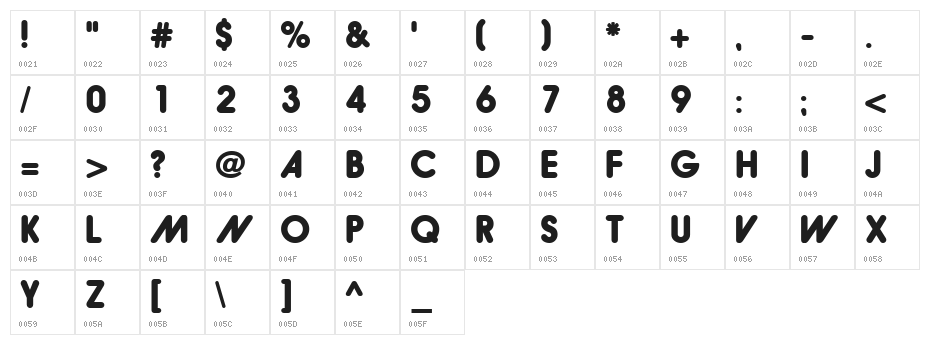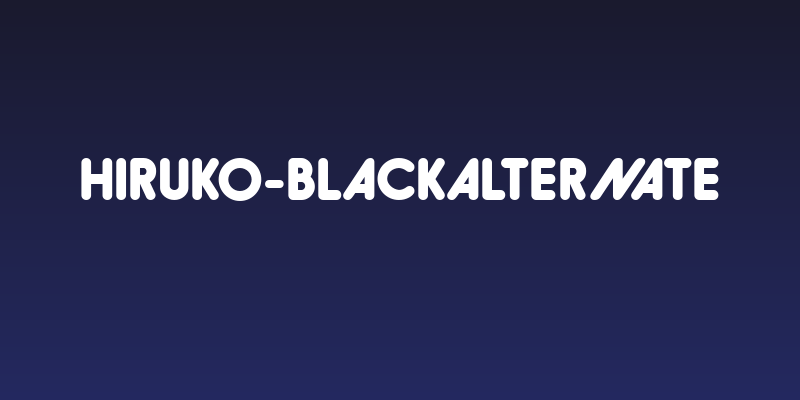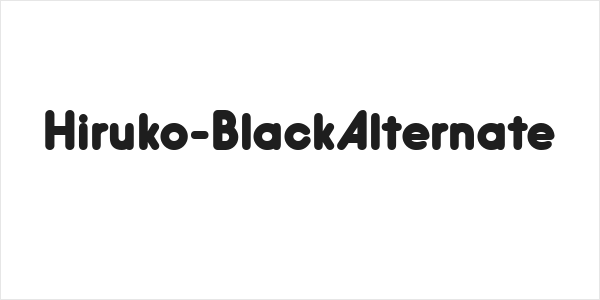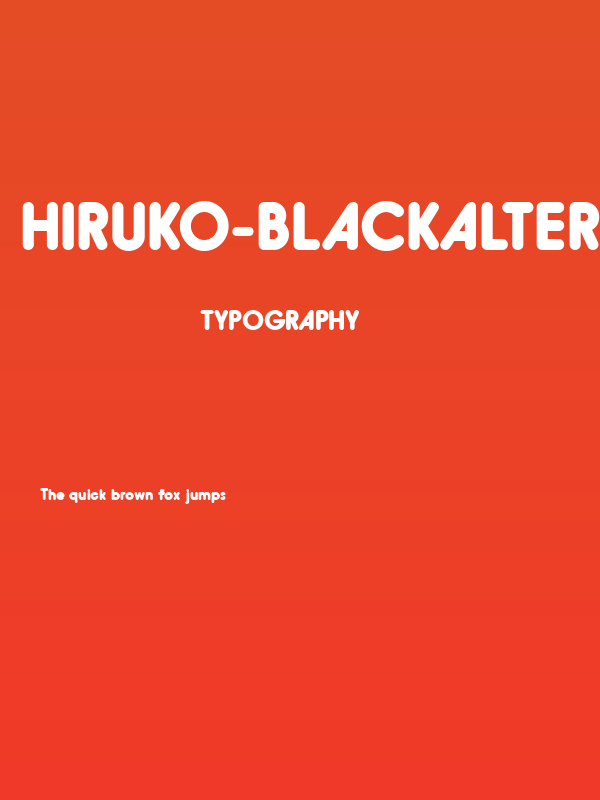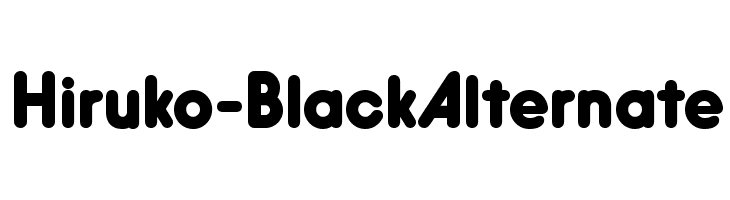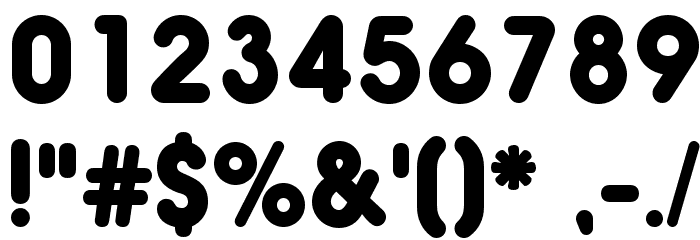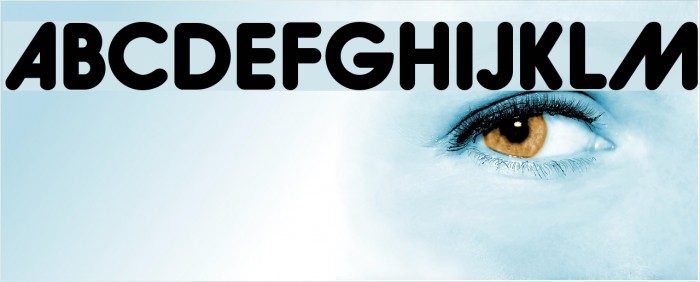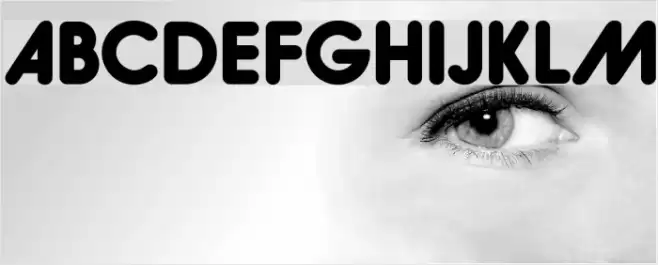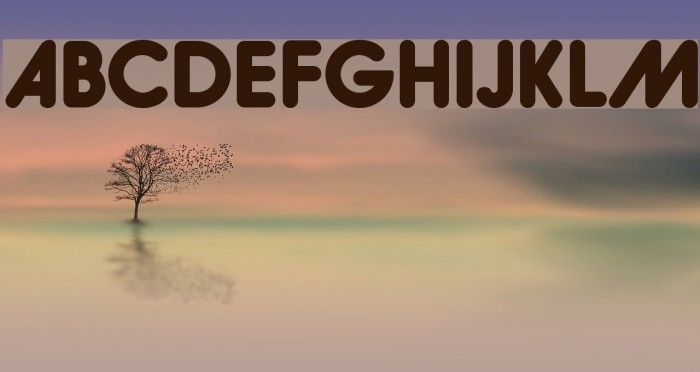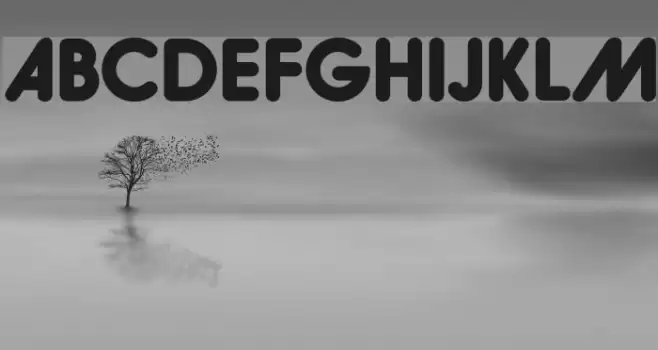
Hiruko-BlackAlternate Font
Hiruko-BlackAlternate Description
This font features a bold and rounded sans-serif style, characterized by its smooth, clean lines and uniform stroke width. The letters are evenly spaced, providing a balanced and harmonious appearance. The uppercase and lowercase characters maintain a consistent design, enhancing readability while adding a modern touch. The numerals and special characters are designed to match the overall aesthetic, making them suitable for a variety of applications. The font's simplicity and boldness make it ideal for creating impactful designs.
| Use Case | Headlines, Logos, Branding |
| Proposed Projects | Ideal for branding, advertising, headlines, and digital media projects requiring a modern and bold aesthetic. |